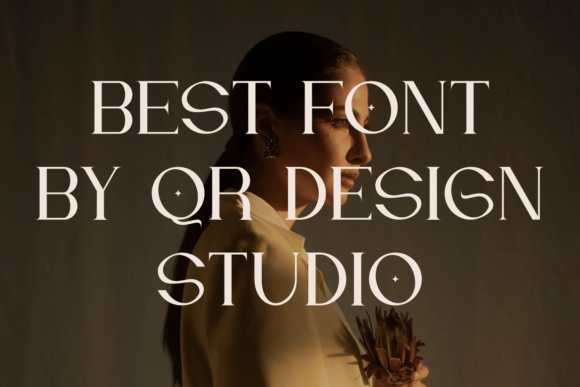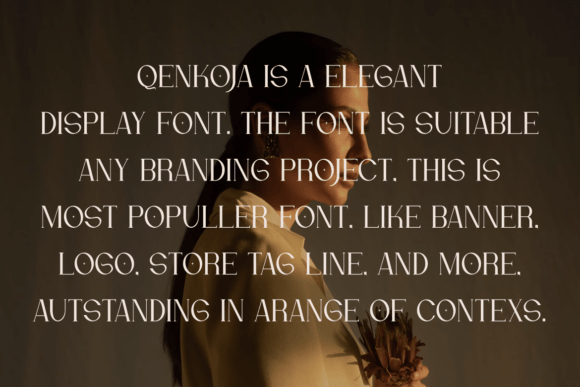
Introduction to Qenkoja Font
Have you ever stumbled upon an old, dusty book or a vintage postcard that sparks your creativity and transports you to a bygone era? That’s exactly the feeling that the Qenkoja Font embodies. This charming serif font is a treasure trove of nostalgia, waiting to be unleashed on your next design project.
As a designer, you’re always on the lookout for that special something that elevates your work to the next level. The Qenkoja Font is a high-quality design resource that delivers an incredible vintage aesthetic, perfect for adding a touch of nostalgia to your creative project. Whether you’re working on a branding project, a social media campaign, or a website design, this font is sure to be a game-changer.
Key Features of Qenkoja Font
- Features a unique and elegant design style with a transparent background, perfect for various applications.
- Includes a range of font styles and weights, allowing for flexibility in your design project.
- Designed with a high resolution, making it suitable for use in both print and digital media.
- Qenkoja Font is a versatile design resource that can be used in various creative projects, from logos to typography-based designs.
Honest Review: Qenkoja Font
As a designer, I’m always on the lookout for high-quality design resources to elevate my creative projects. Recently, I stumbled upon the Qenkoja Font, and I must say, it’s been a pleasant discovery.
Here are some things that work well about the Qenkoja Font: ✨ It’s completely free to download, which is a major plus for designers on a budget. The font is also incredibly versatile, making it perfect for a wide range of creative projects. The transparent background is another feature that I appreciate, as it gives me the flexibility to layer the font over different backgrounds.
However, there are a few limitations to consider: ⚠️ The font is not as customizable as some other options on the market, which may be a drawback for designers who like to fine-tune their typography. Additionally, the font may not be suitable for extremely large or complex projects, as it can become difficult to read.
Overall, I’m impressed with the Qenkoja Font. It’s a solid design resource that’s perfect for designers who need a reliable, high-quality font for their creative projects.
Tips for Getting the Most Out of Qenkoja Font
For the best results, use the Qenkoja Font in combination with a high-quality design project. Experiment with different font sizes, colors, and alignments to create a unique and creative look. You can also use the Qenkoja Font in combination with other design elements, such as images and shapes, to add depth and interest to your design.
The Qenkoja Font is ideal for a variety of design projects, including presentations, documents, and graphics. It’s also a great resource for designers who need a free download of a high-quality font. With its transparent background and creative possibilities, the Qenkoja Font is a valuable addition to any design resource library.